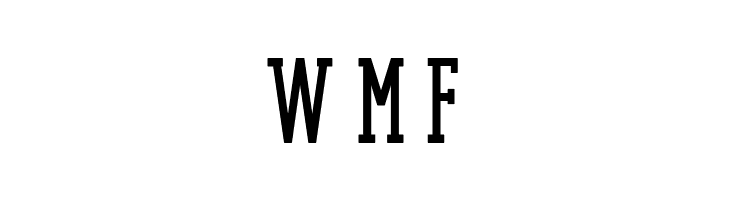
Combustion Wide BRK Font
A tall, narrow font with subtle serifs and a modern yet classic style.
Vacant Capz BRK Font
Font by www.aenigmafonts.com
A bold, playful font with a three-dimensional outline and whimsical style.
Conduit BRK Font
A bold, rounded, and playful font with a futuristic style.
Quirkus Font
Font by www.peter-wiegel.de. Personal-use only. For commercial use please contact owner.
A bold, geometric sans-serif font with clean lines and modern appeal.
Goose Bumps BRK Font
A decorative, spooky font with bold, irregular outlines and a hand-drawn look.
Respective Swashes Slanted Font
Font by Mans Greback - www.mawns.com
An elegant, swash-filled cursive font with a slanted, decorative style.
Zoetrope -BRK- Font
Font by www.aenigmafonts.com
A bold, decorative font with rounded shapes and dot accents, offering a playful and futuristic look.
Bandwidth BRK Font
Font by www.aenigmafonts.com
A bold, modern font with a futuristic and geometric design.
Maassslicer3D Font